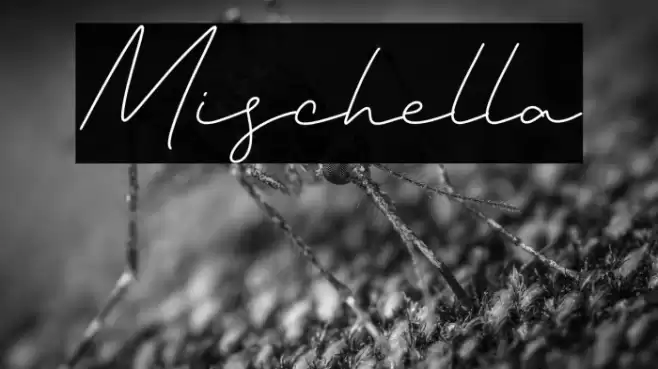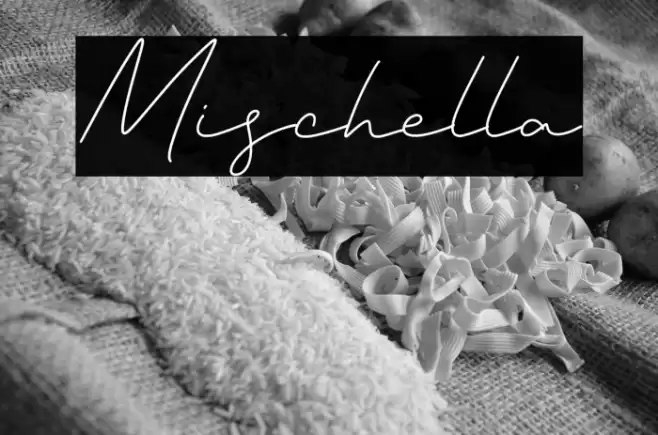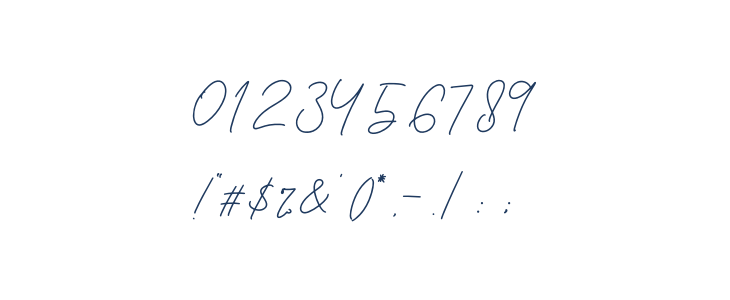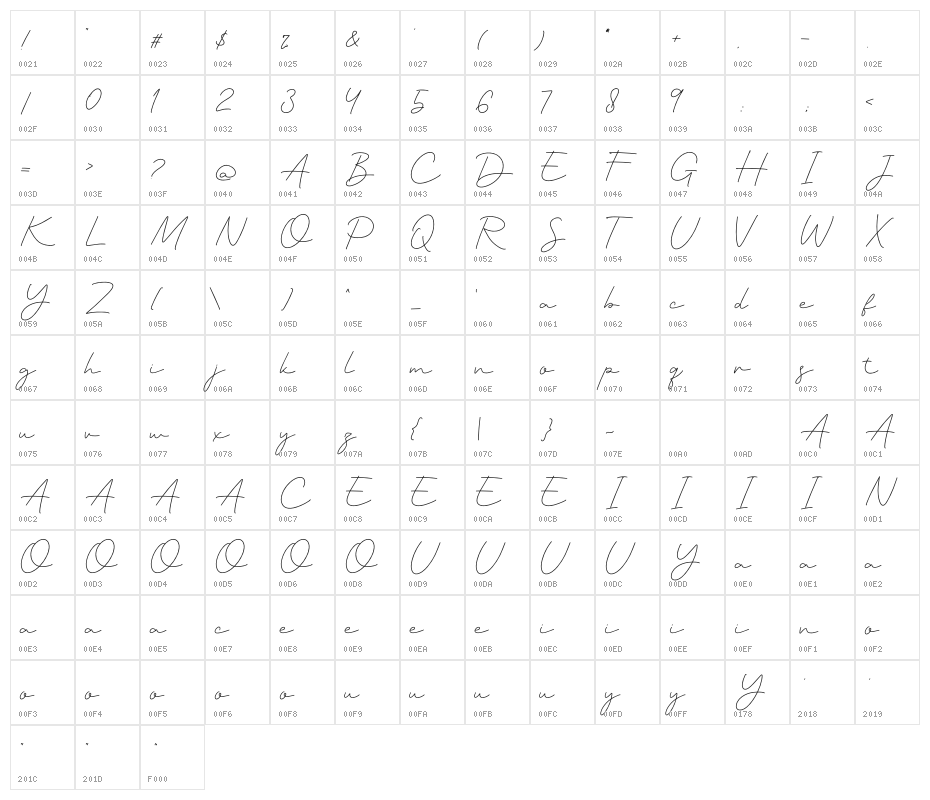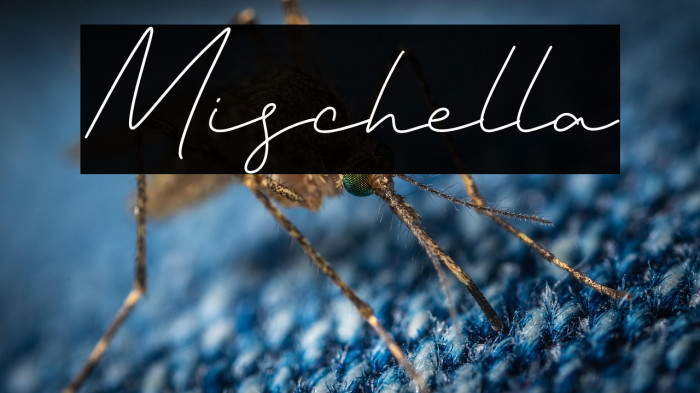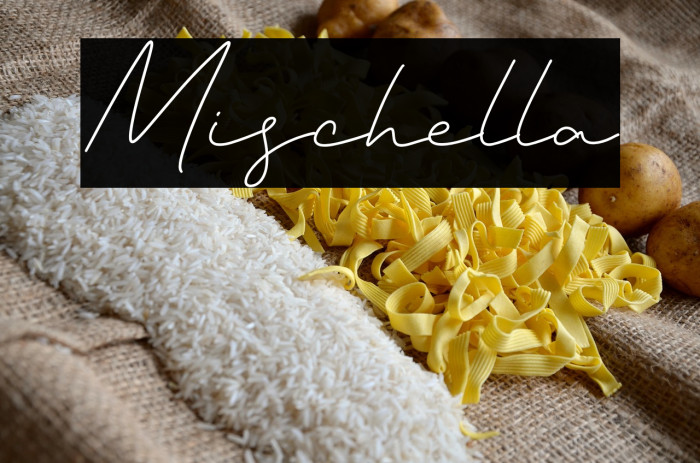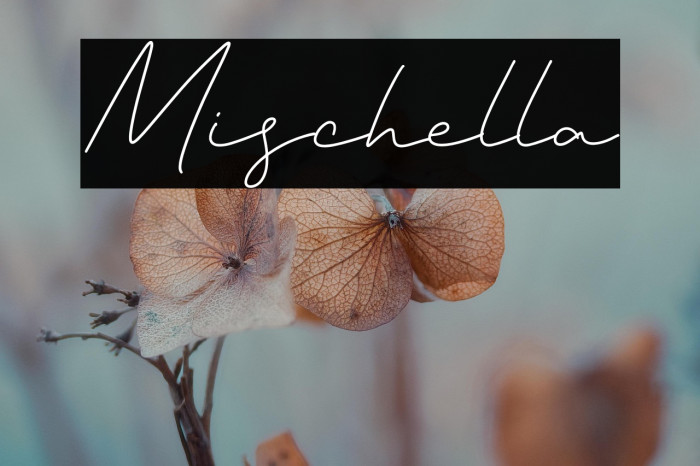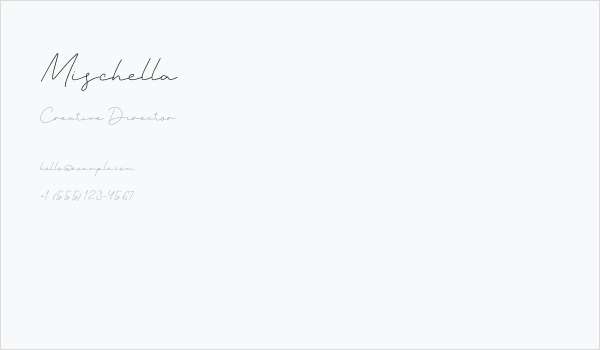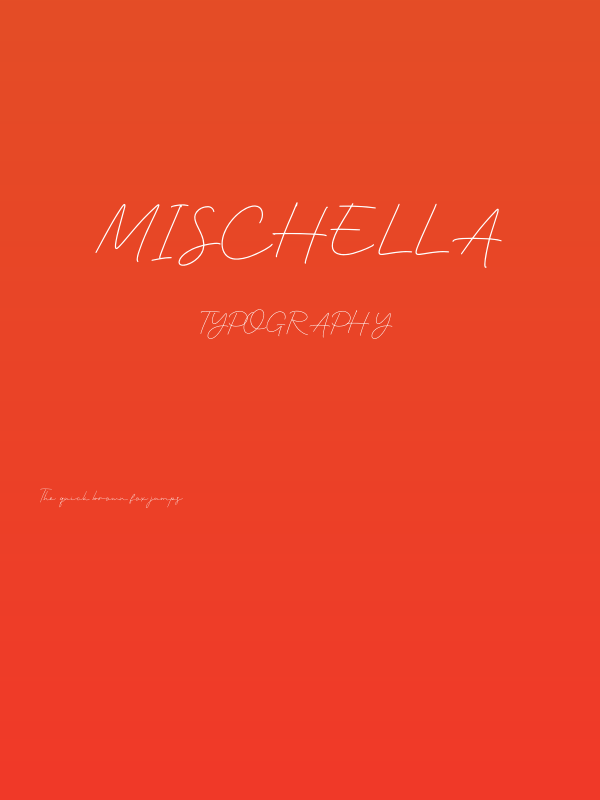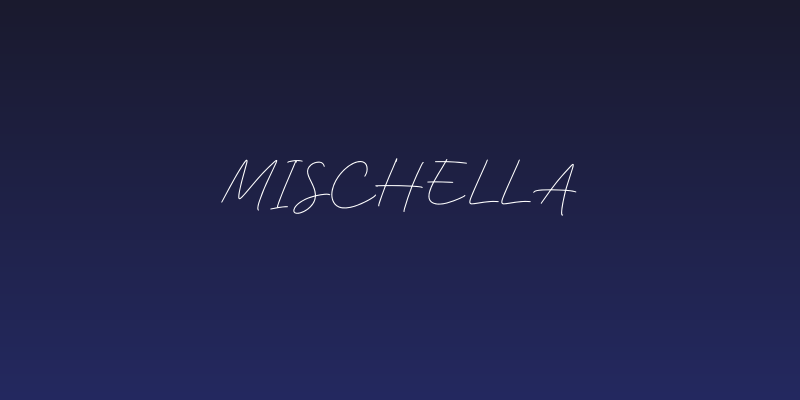
Mischella Font
Mischella Description
This font features a delicate and flowing script style, characterized by its elegant, handwritten appearance. The letters are connected in a fluid manner, giving it a natural and personal touch. The uppercase letters are slightly more formal, while the lowercase letters exhibit a casual, free-flowing style. The numerals and special characters maintain the same graceful aesthetic, ensuring consistency throughout. The overall design is light and airy, with a consistent stroke width that adds to its readability and charm. This font is perfect for projects that require a personal, yet sophisticated touch.
A graceful, handwritten script font with a fluid and elegant style from Uncategorized fonts.
- Proposed Projects: Ideal for wedding invitations, greeting cards, personal branding, and elegant packaging designs.
- Weight: Light
- Overall Style: Elegant, Handwritten
- Use Case: Logos, Invitations, Personal Branding